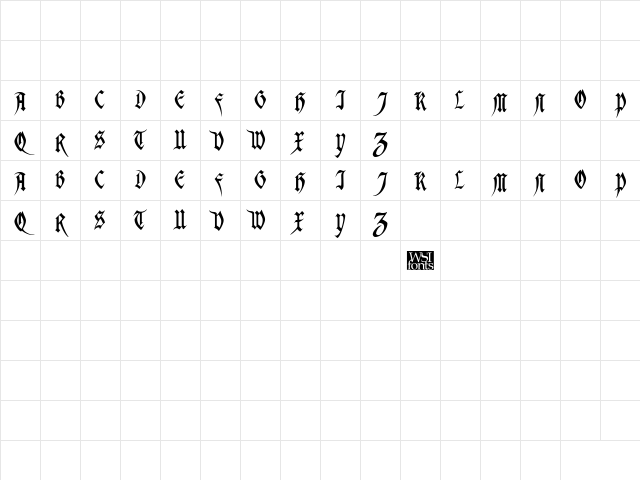
WadellCaps Regular
Design Context for WadellCaps
WadellCaps is a composed and adaptable typeface that performs quietly and consistently across a wide range of design contexts.